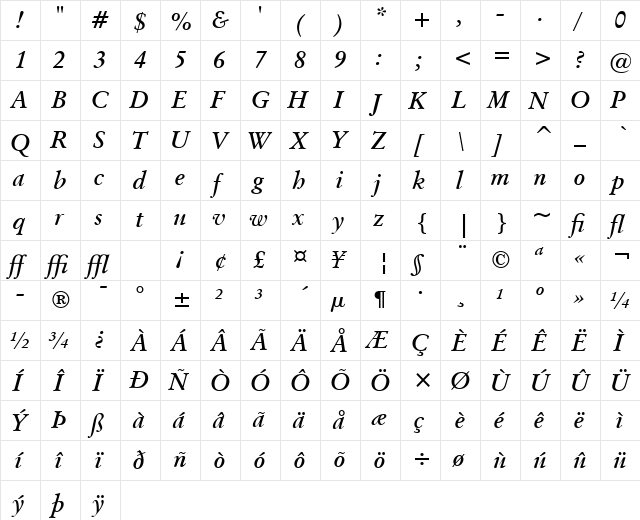
Baramond Bold Italic Font Preview
Design Context for Baramond Typeface
Baramond takes a measured approach to typography — its balanced proportions and neutral character make it a reliable workhorse for both digital and print work. Its italic angle brings a sense of urgency and motion to the letterforms. The heavy weight commands attention and anchors typographic hierarchies.
Pro Tip: Try Baramond for annotation and caption copy alongside an upright companion — the contrast in angle creates a dynamic but ordered typographic system.